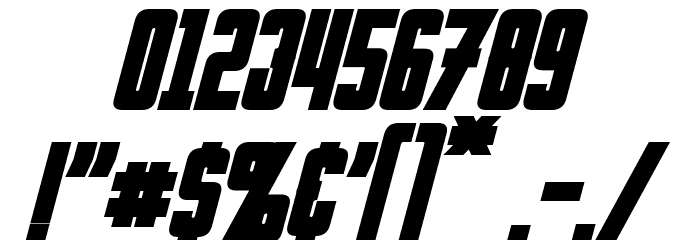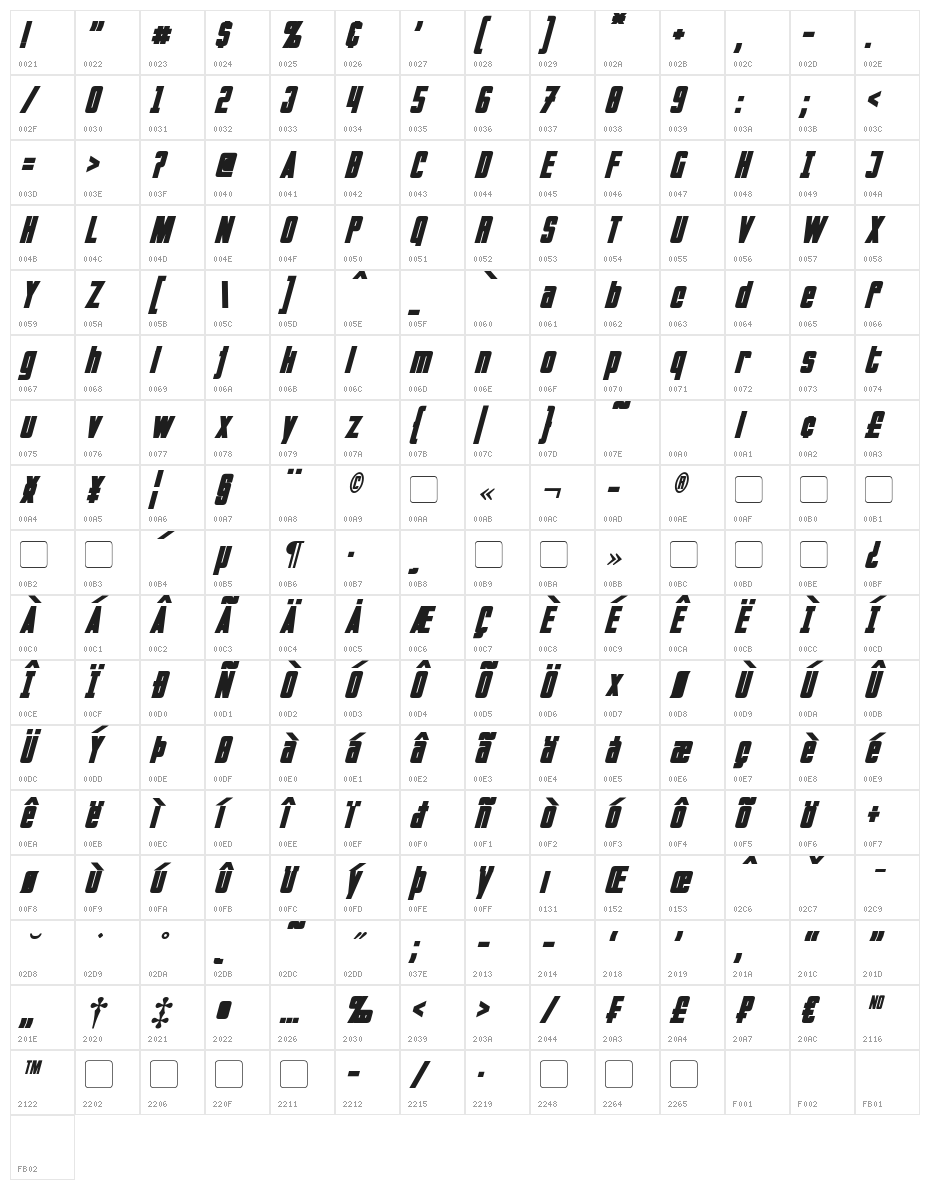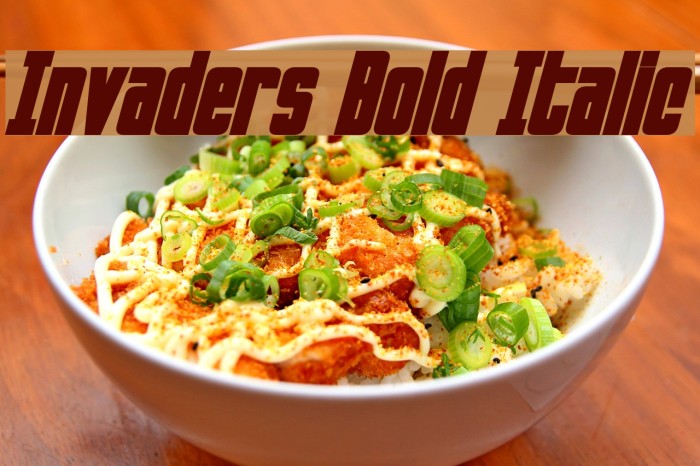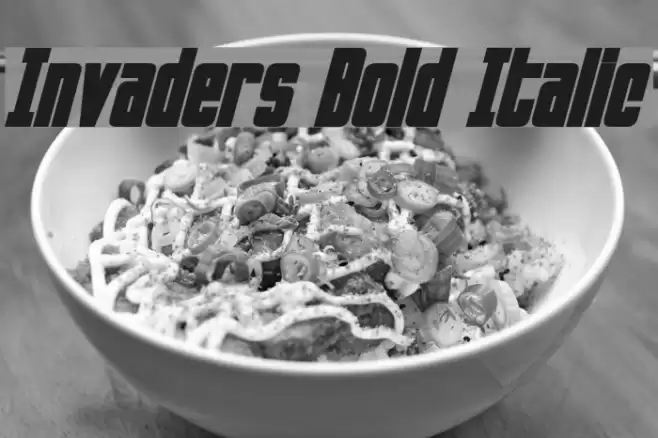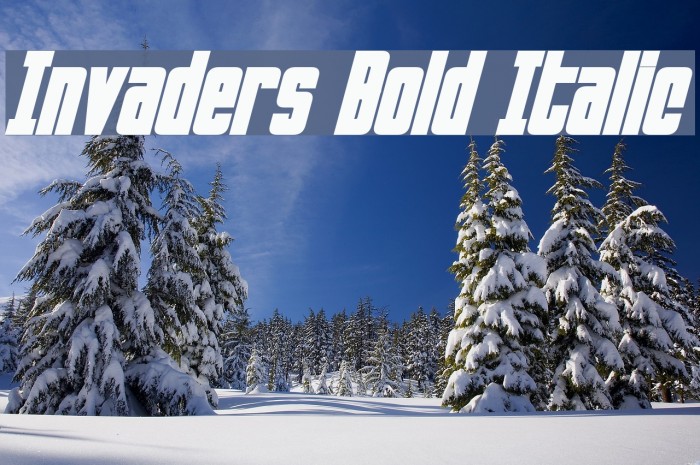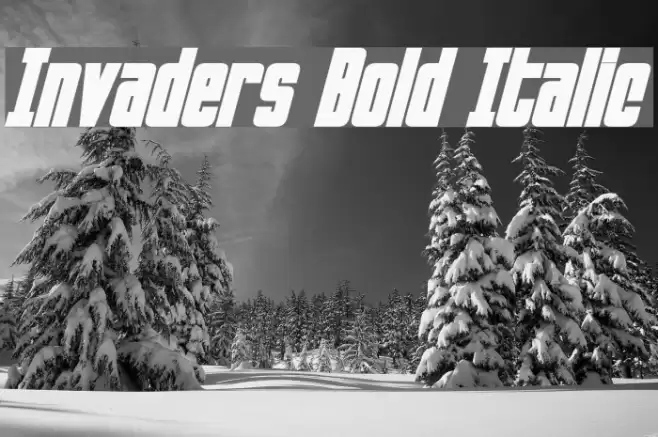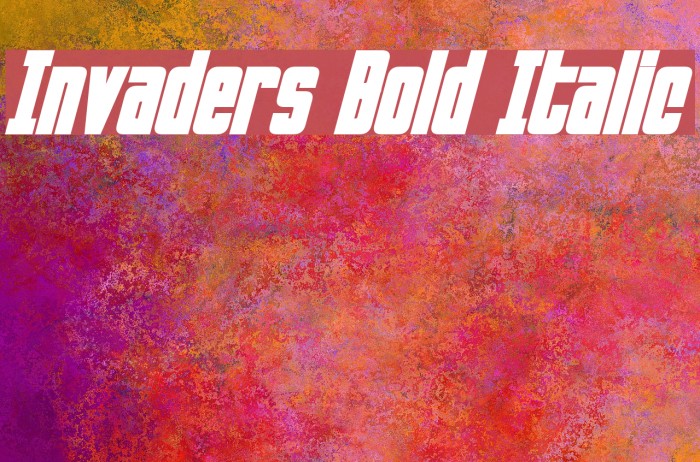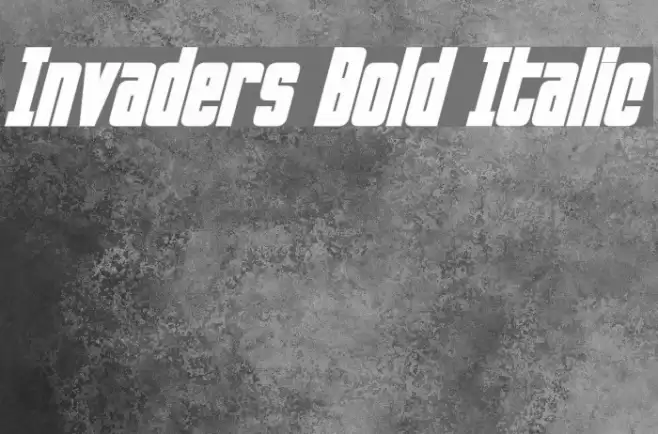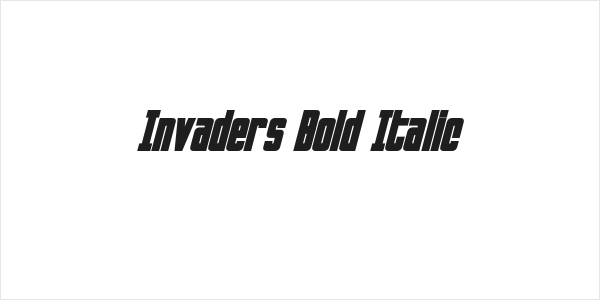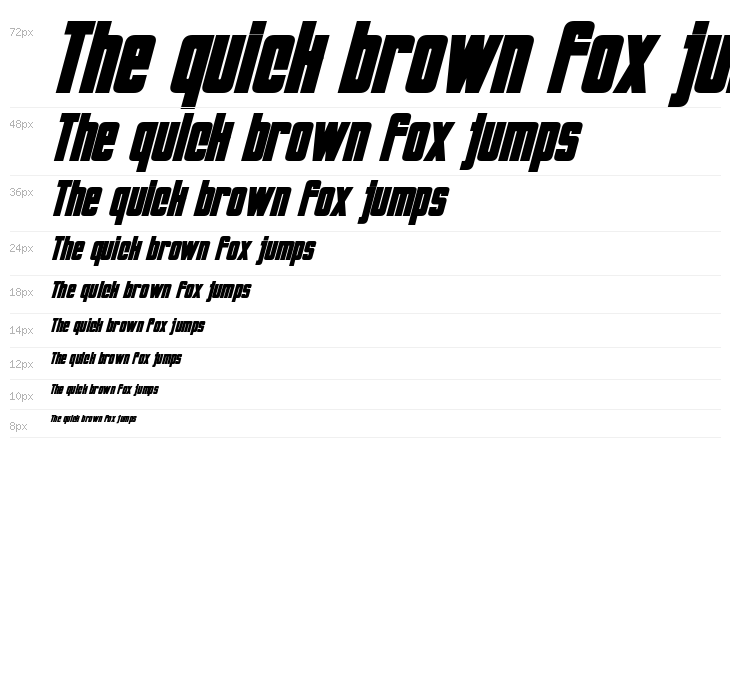
Invaders Bold Italic Font
Invaders Bold Italic Description
This font exhibits a bold and italicized style, characterized by its strong geometric shapes and sharp angles. The letters are slanted, giving a dynamic and forward-moving appearance. The uppercase and lowercase characters maintain a consistent weight, contributing to a cohesive look. The numbers and special characters follow the same bold and italicized design, ensuring uniformity across all glyphs. The font's aggressive and modern aesthetic makes it suitable for attention-grabbing designs.